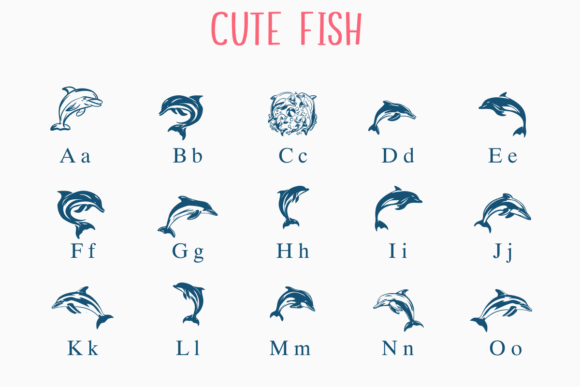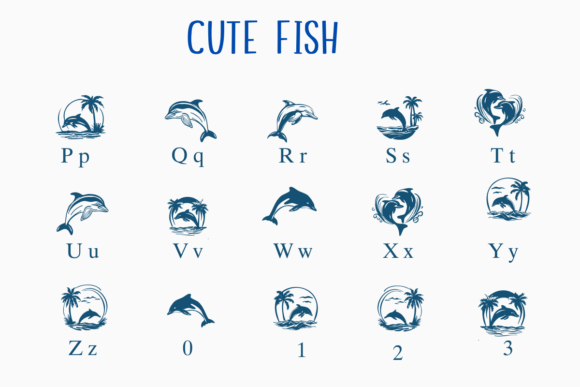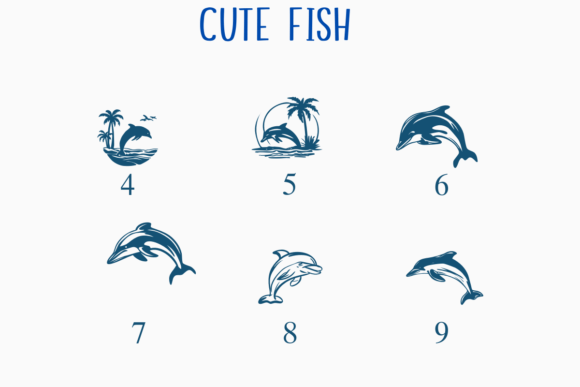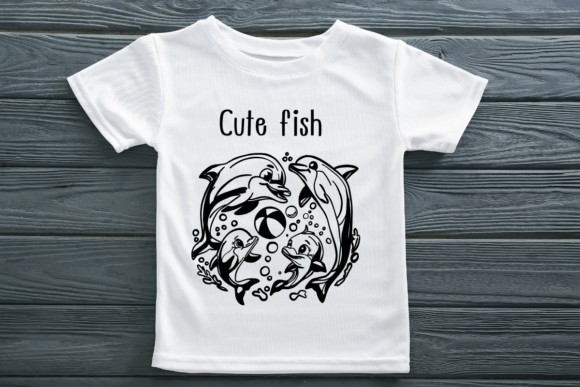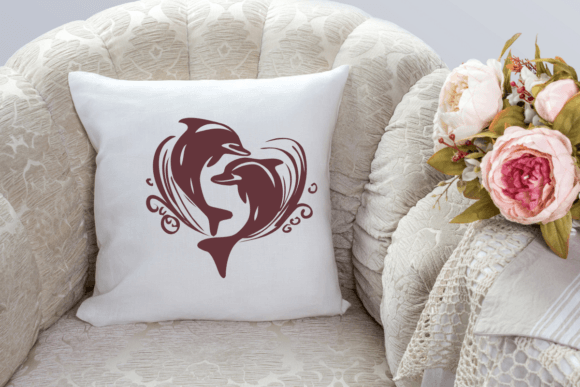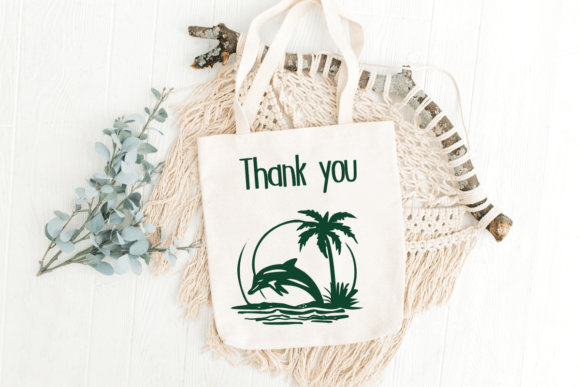
Catch the Eye with Cute Fish Font
Have you ever been browsing through a craft store, and suddenly, you’re inspired by a quirky design or a charming pattern? That’s exactly what happened to me last weekend when I stumbled upon a beautifully designed wedding invitation featuring a playful aquatic theme. I couldn’t help but wonder how the designer managed to create such a unique and captivating visual. Little did I know, the secret lay in a special font – Cute Fish Font.
Cute Fish Font is a delightful dingbats font with an aquatic theme that’s perfect for adding a touch of whimsy to your creative projects. Whether you’re designing wedding invitations, crafting DIY decorations, or creating logos, this font can elevate your ideas and make them truly stand out. As a designer, you understand the importance of having the right tools at your disposal to bring your vision to life. That’s where Cute Fish Font comes in – a valuable addition to any designer’s toolkit.
Cute Fish Font Key Features
- Font Family: Cute Fish Font is a unique, hand-drawn font designed to resemble cute fish. It comes in a variety of styles and weights to suit different design needs.
- Character Set: The font includes a wide range of characters, including uppercase and lowercase letters, numbers, punctuation marks, and special characters.
- Unique Characteristics: The font’s hand-drawn design and cute fish theme make it a standout choice for designs that require a playful, whimsical touch.
Cute Fish Font Review
Overall, I think the Cute Fish Font is a charming addition to any digital project. ✨ It’s playful, fun, and immediately grabs the user’s attention. The font’s rounded edges and exaggerated features make it perfect for children’s apps, games, or even social media graphics.
Here are some of the things I love about the Cute Fish Font:
- ✨ Its versatility – it can be used for both headings and body text, making it a great choice for projects where you need to maintain a consistent look and feel.
- ✨ The wide range of character sets available, including punctuation and numbers, ensures that you can use the font throughout your project without any limitations.
- ✨ The font’s scalability – it looks great in both small and large sizes, making it perfect for projects where you need to use the font in different contexts.
However, I do have a few reservations about the Cute Fish Font:
- ⚠️ Some of the characters may appear a bit rough around the edges, especially at smaller sizes. This could be a problem if you’re using the font in a professional setting where attention to detail is crucial.
- ⚠️ The font may not be suitable for projects where you need a high level of sophistication or elegance. Its playful nature may come across as immature or unprofessional in certain contexts.
Overall, I think the Cute Fish Font is a great choice for projects where you want to add a touch of fun and whimsy. Just be mindful of its limitations and use it in contexts where it will shine.
Tips for Getting the Most Out of Cute Fish Font
To get the most out of Cute Fish Font, try using it in combination with other whimsical design elements, such as illustrations or graphics. You can also use it to create a cohesive brand identity for your business or personal projects.
Cute Fish Font is perfect for:
- Children’s books and educational materials.
- Whimsical greeting cards and invitations.
- Personalized stationery and gift tags.